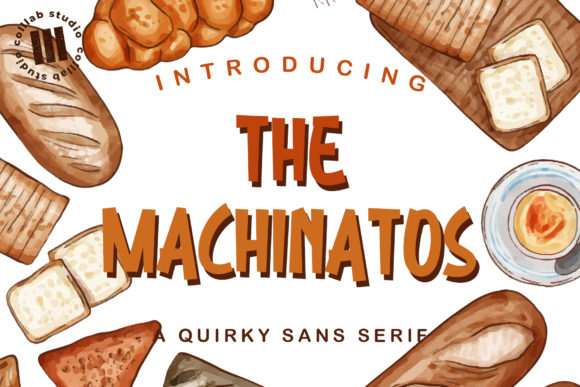
Prepare to be captivated by The Machinatos Font, a sans serif masterpiece from colllabstudio. This extraordinary font is not just a collection of letters; it's an invitation to unleash your imagination and elevate your designs to extraordinary heights.
With its bold and assertive strokes, The Machinatos Font commands attention like a symphony of confidence. Its dynamic curves and sharp angles create a captivating visual rhythm that will make your words dance off the page. Whether you're crafting eye-catching headlines, captivating social media posts, or unforgettable branding, this font is your virtuoso performer.
But The Machinatos Font is more than just a pretty face. Its versatility knows no bounds, making it the perfect choice for a myriad of design endeavors. From elegant invitations to vibrant posters, from sleek websites to charming packaging, this font will effortlessly adapt to your creative vision, transforming your ideas into captivating realities.
So, if you're ready to inject some boldness into your designs and leave a lasting impression, The Machinatos Font is your secret weapon. Let its audacious spirit ignite your creativity and propel your projects to the forefront of style and impact.
Embrace the power of The Machinatos Font today and watch your designs soar to new heights of brilliance!